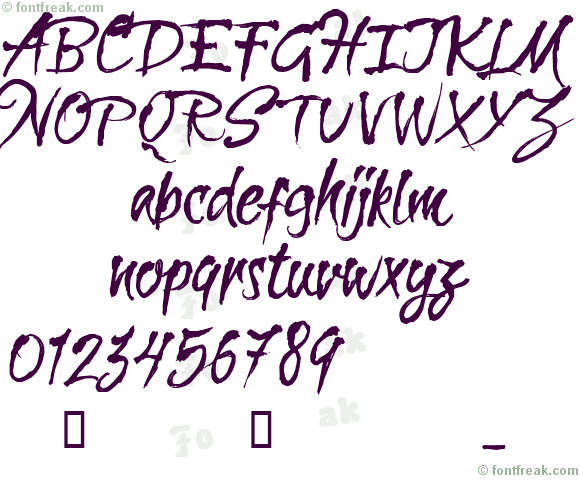
CF La Sorciere Noire Regular
CF La Sorciere Noire Regular by Cloutierfontes is a captivating script font that embodies an enchanting and whimsical character. This font features a fluid, handwritten style with elegant strokes that evoke a sense of artistry and creativity. The slightly varying stroke weights add a dynamic quality, while the moderate contrast ensures that the text remains legible across various sizes. The spacing is thoughtfully designed, allowing for a natural flow that enhances readability without sacrificing style. Decorative elements, such as the playful curves and flourishes, further contribute to its unique charm.
This versatile font is well-suited for a range of applications. It shines in wedding invitations, where its romantic and personal touch can elevate the overall aesthetic. Additionally, CF La Sorciere Noire Regular is an excellent choice for movie posters, particularly in genres that embrace fantasy or adventure themes, where its expressive design can capture attention. Restaurant menus can also benefit from this font, as it adds a touch of sophistication and creativity to the dining experience. Other potential uses include branding for artisanal products or creative businesses, where a distinctive and memorable typeface can leave a lasting impression.
What sets CF La Sorciere Noire Regular apart is its ability to blend elegance with a playful spirit, making it a compelling choice for projects that require a touch of magic and artistry. Its distinctive style ensures that it will stand out in any design, leaving a memorable impact on viewers.